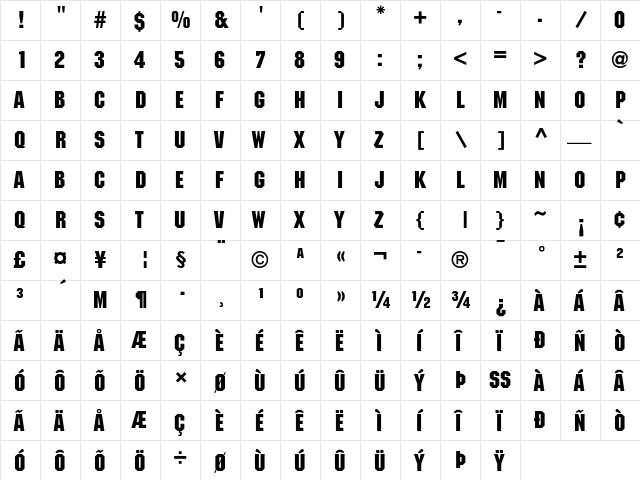
ITC Machine Medium
Design Context for ITC Machine Typeface
ITC Machine is a composed and adaptable typeface that performs quietly and consistently across a wide range of design contexts.
Pro Tip: Pair ITC Machine with a font of contrasting weight or personality to build a more expressive typographic hierarchy.